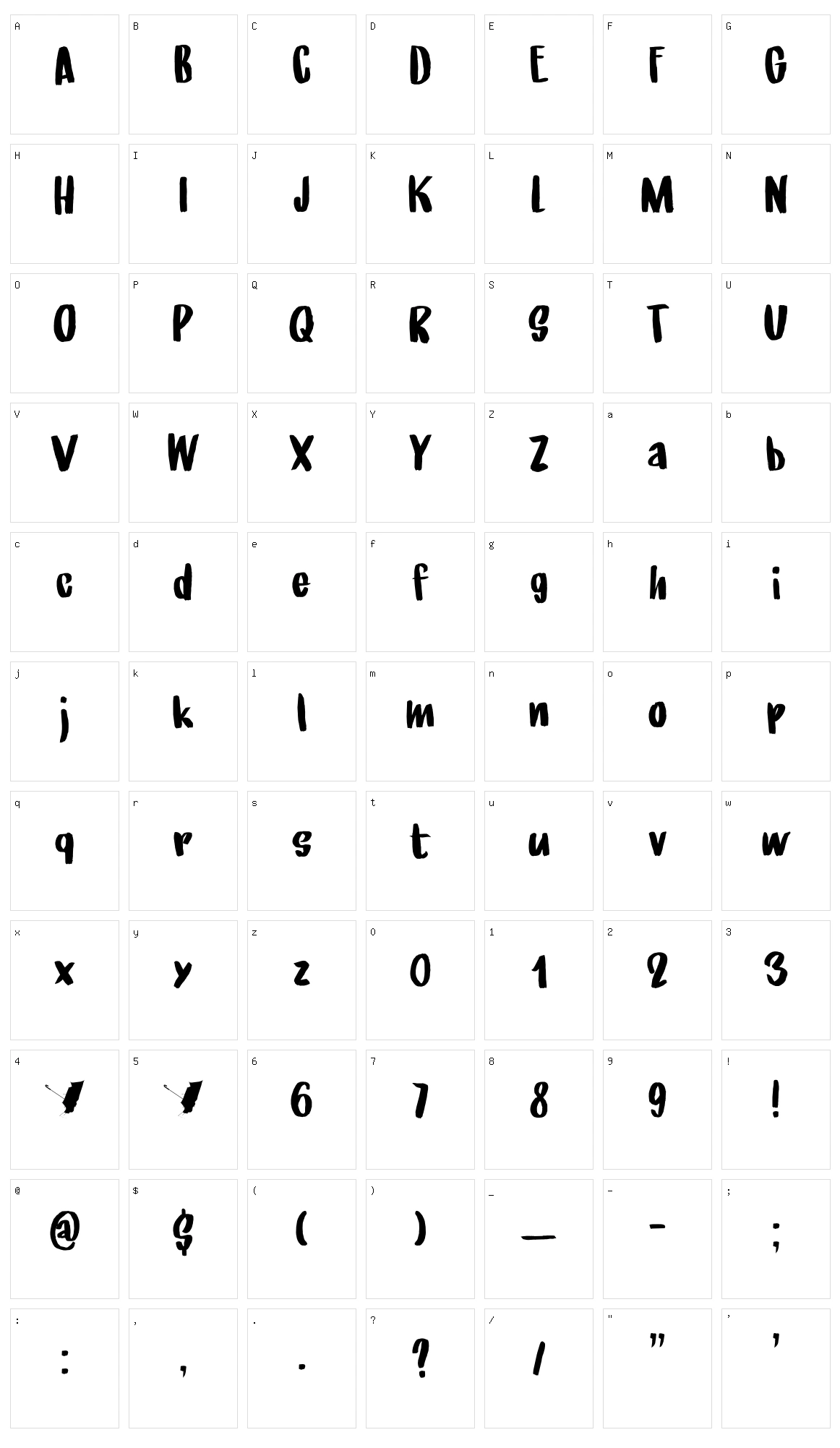
The free font Under My Umbrella is carefully designed by Hanoded, showcasing a thoughtful balance of creativity and usability and falls under the Script font style. When you download the ZIP file, it contains only 1011.4 KB of font files, making it lightweight and quick to download. Please review the license details below to understand permitted usage and distribution rights. If license information is not available, we recommend using this font for personal projects only or contacting the author directly for commercial usage permissions.